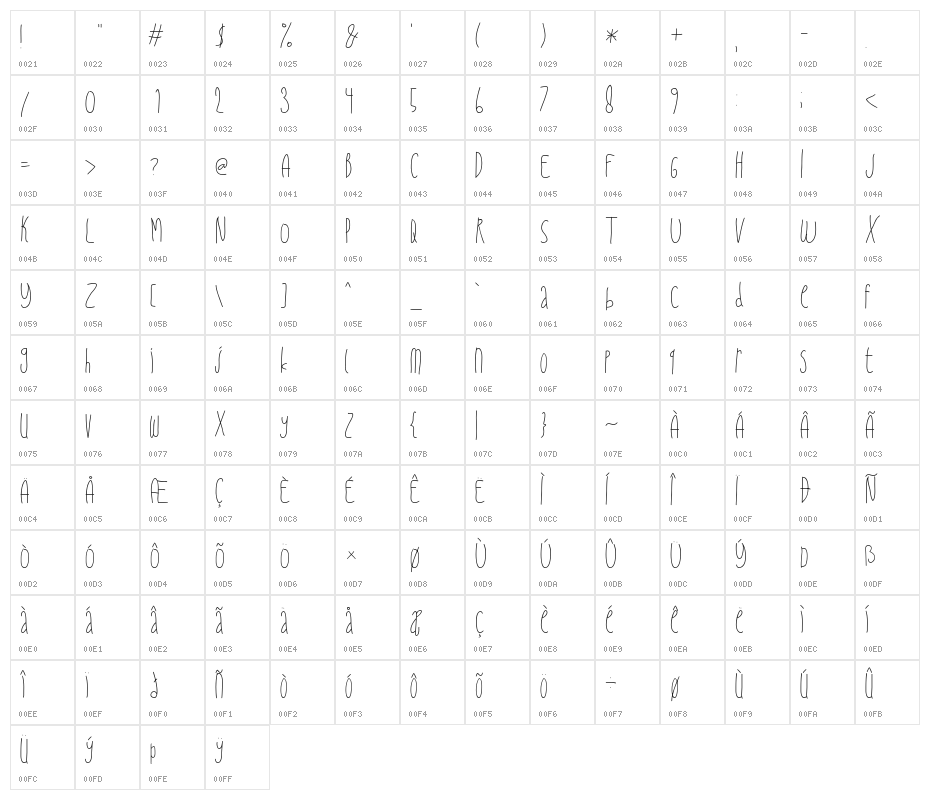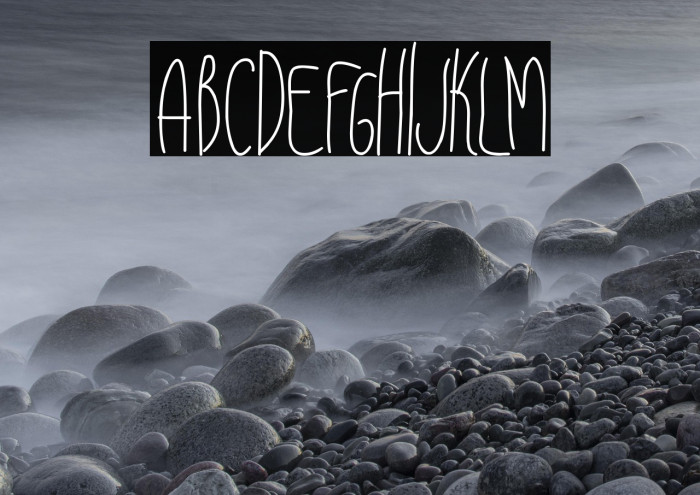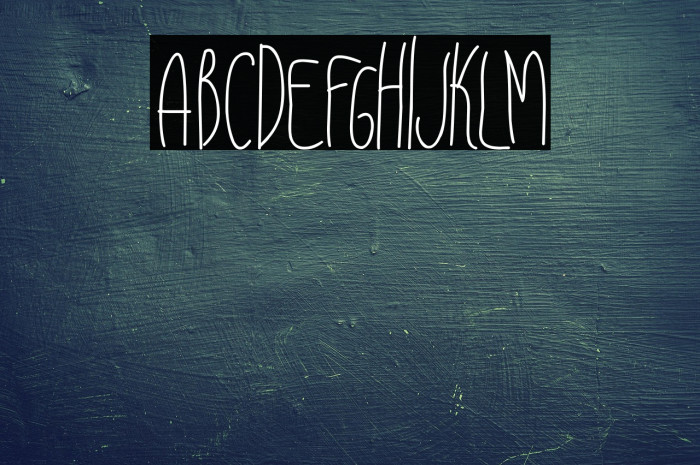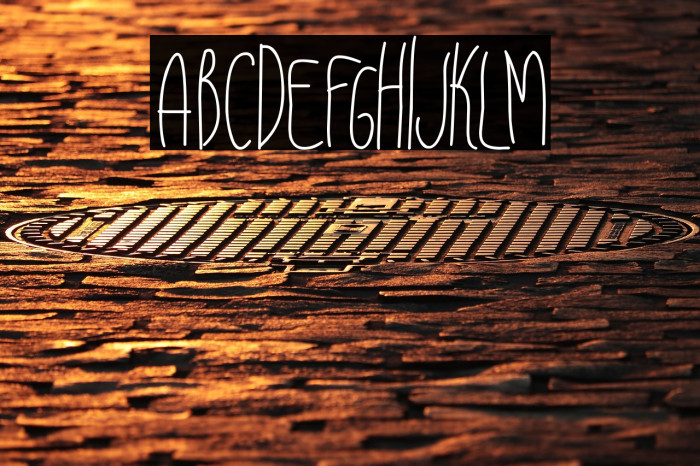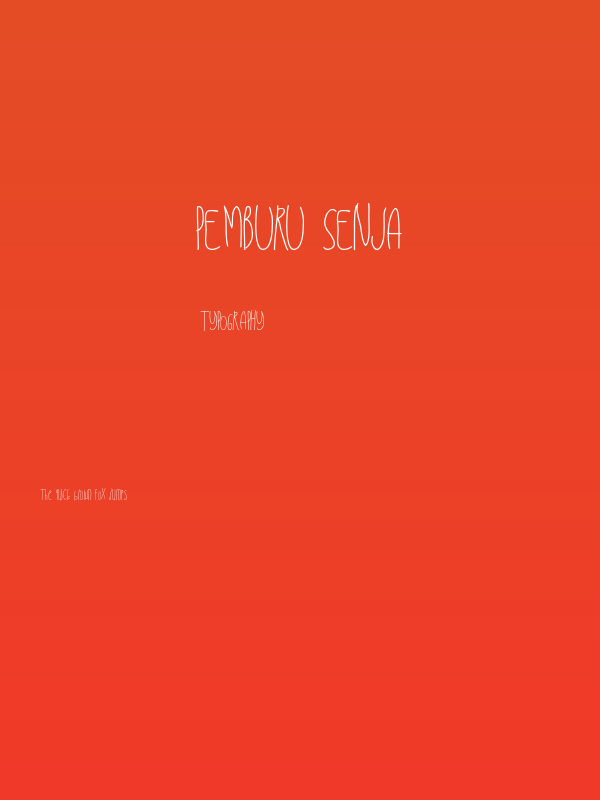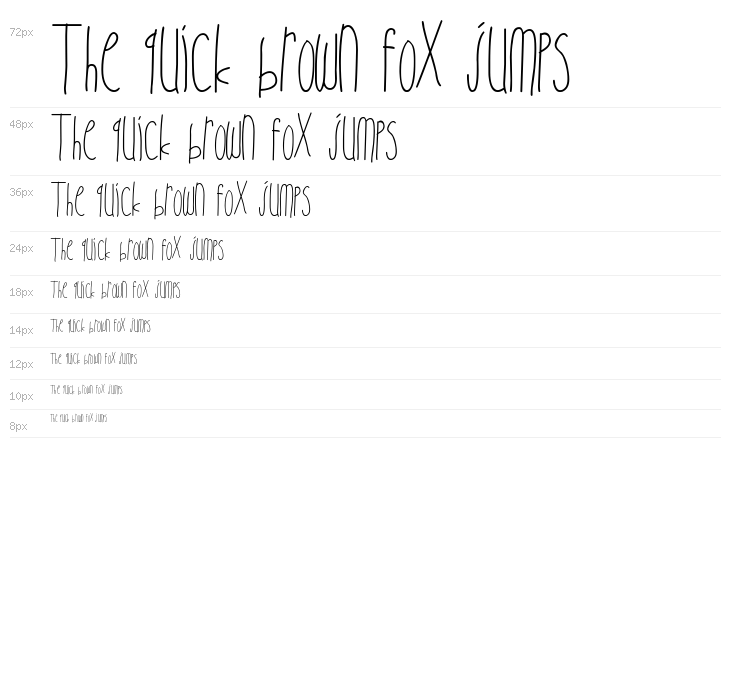
Pemburu Senja Font
Pemburu Senja Description
This font features a whimsical, handwritten style with tall, narrow characters. The strokes are thin and consistent, giving it a light and airy appearance. The uppercase and lowercase letters maintain a playful yet elegant form, with slight variations that add a touch of uniqueness. The numbers and special characters follow the same slender and elongated design, ensuring a cohesive look across all elements. This font's charm lies in its simplicity and the subtle irregularities that mimic natural handwriting.
Use CaseHeadlines, Logos, Invitations
Proposed ProjectsIdeal for creative projects such as greeting cards, invitations, personal branding, and playful editorial designs.